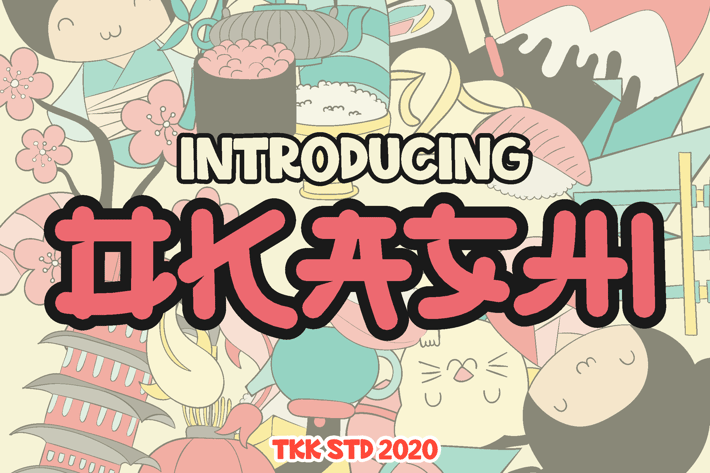
OKASHI - faux japanese font
Okashi - Faux Japanese Font
OKASHI is a playful, kawaii-style display font inspired by Japanese snack packaging and bubble-text manga lettering. With its rounded shapes, chubby forms, and bouncy baseline, this font captures a joyful, whimsical personality that feels both charming and accessible. Designed for cuteness-driven markets, it brings soft energy and a pop of fun to visual identities, especially in food branding, YouTube thumbnails, and kid-oriented products.
Perfect for creators building cute Japanese food menus, children’s book covers, or adorable app interfaces, OKASHI makes your design instantly loveable. It connects with audiences through its friendly character, especially in markets that value cuteness, warmth, and cultural charm—think bento boxes, kawaii plush toys, and character-driven branding. If your project needs a joyful, soft-spoken hero, OKASHI delivers with charisma.
Key Features
Why Brands & Creators Choose OKASHI:
- Bubble-inspired, soft curves for friendly and welcoming tone
- Rounded terminals & exaggerated proportions for visual impact
- Kawaii-style energy perfect for Asian cuisine, kids products, and cartoons
- Ideal for: menus, logos, packaging, character branding, YouTube, app UI, kids books
- Multilingual support with charming forms across every glyph
- Basic latin A-Z and a-z
- Numbers
- PUA Encoded Characters